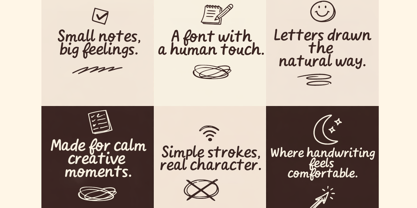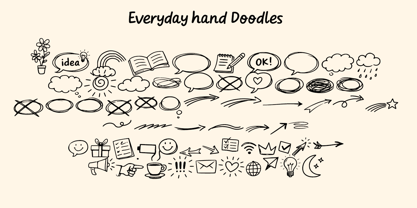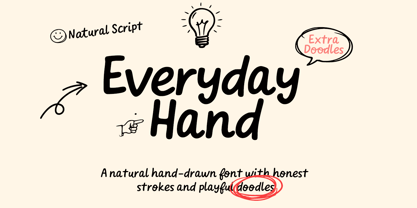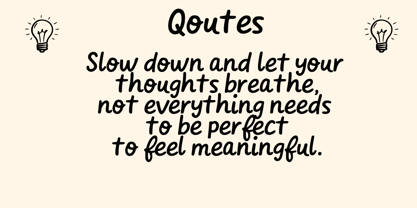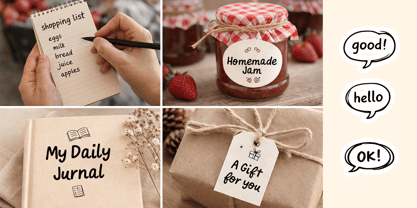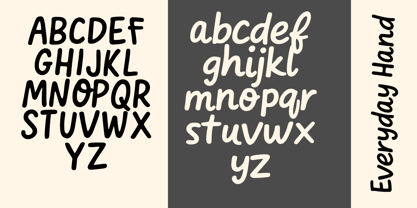
Everyday Hand
by Cocodesign
The Everyday Hand Font Family was designed by Muhammad Zaini and published by Cocodesign. Everyday Hand contains 2 styles and family package options. More about this family
Everyday Hand – Natural Handwritten Font Everyday Hand is a natural hand-drawn font inspired by relaxed, everyday handwriting. The letterforms feature soft strokes and an organic flow, creating a warm and approachable look that feels natural and effortless. Designed with subtle imperfections, this font delivers a casual handwritten style while remaining clear and readable. Hand-drawn doodle elements are included to add character and playful accents, making the font suitable for a wide range of creative uses. Everyday Hand works well for quotes, journals, planners, branding, packaging, labels, covers, social media graphics, and lifestyle-themed designs that require a friendly and human feel.
Designers: Muhammad Zaini
Foundry: Cocodesign